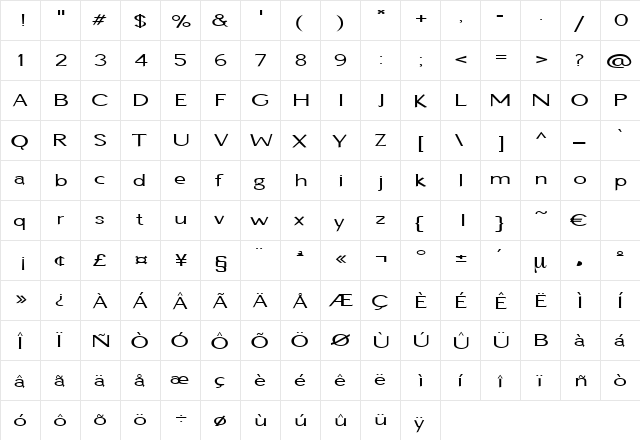
Enzyklika Regular
Design Context for Enzyklika Typeface
Enzyklika offers clean, dependable letterforms without strong stylistic allegiance, making it a practical choice for designers who need flexibility.